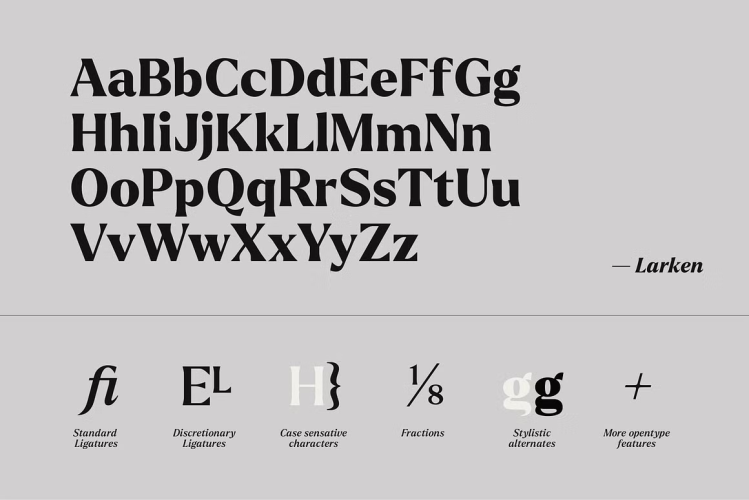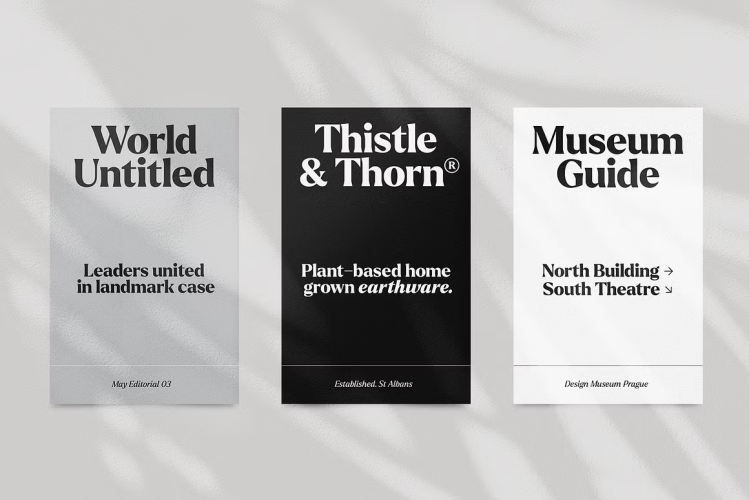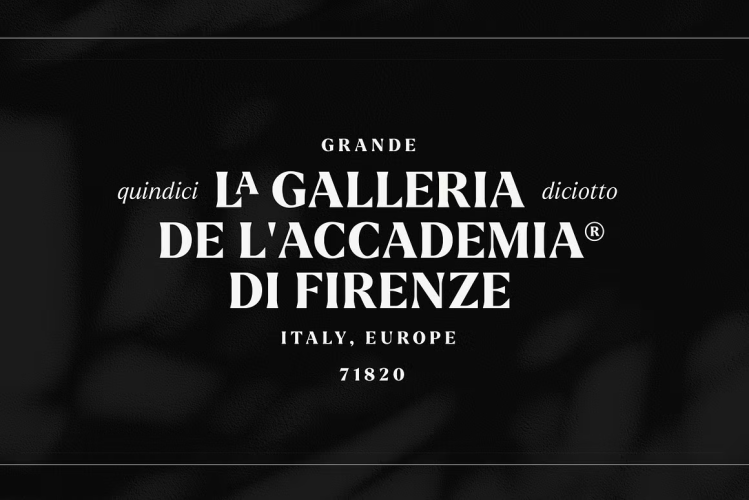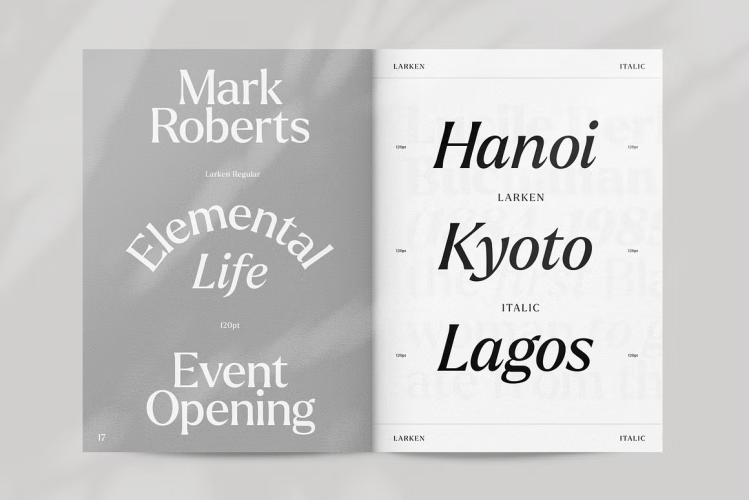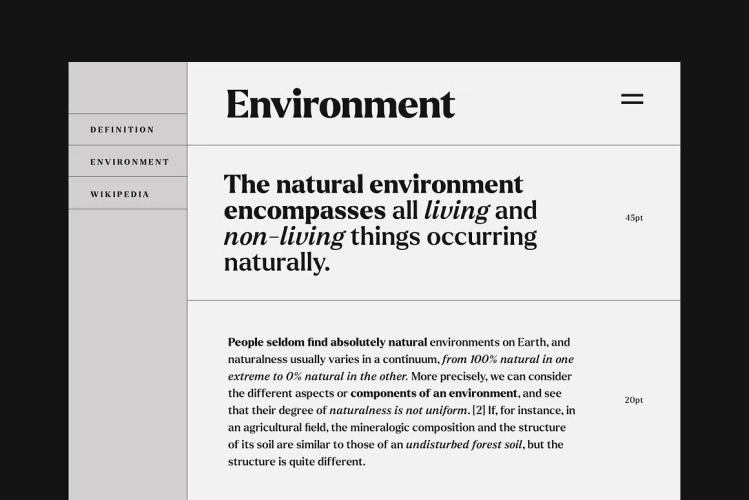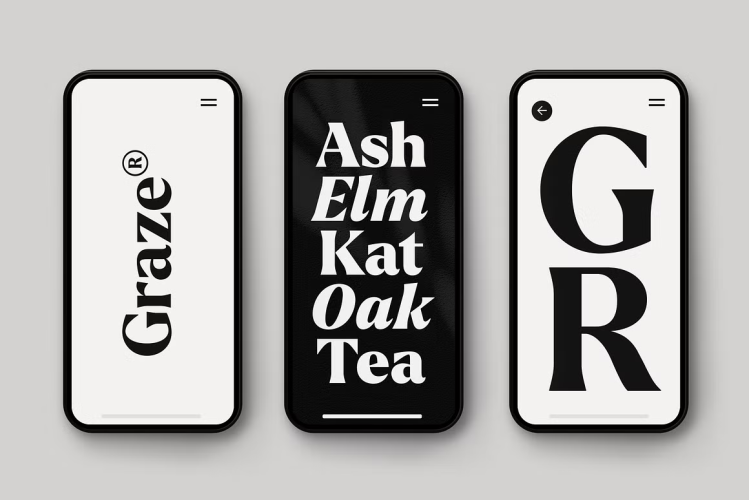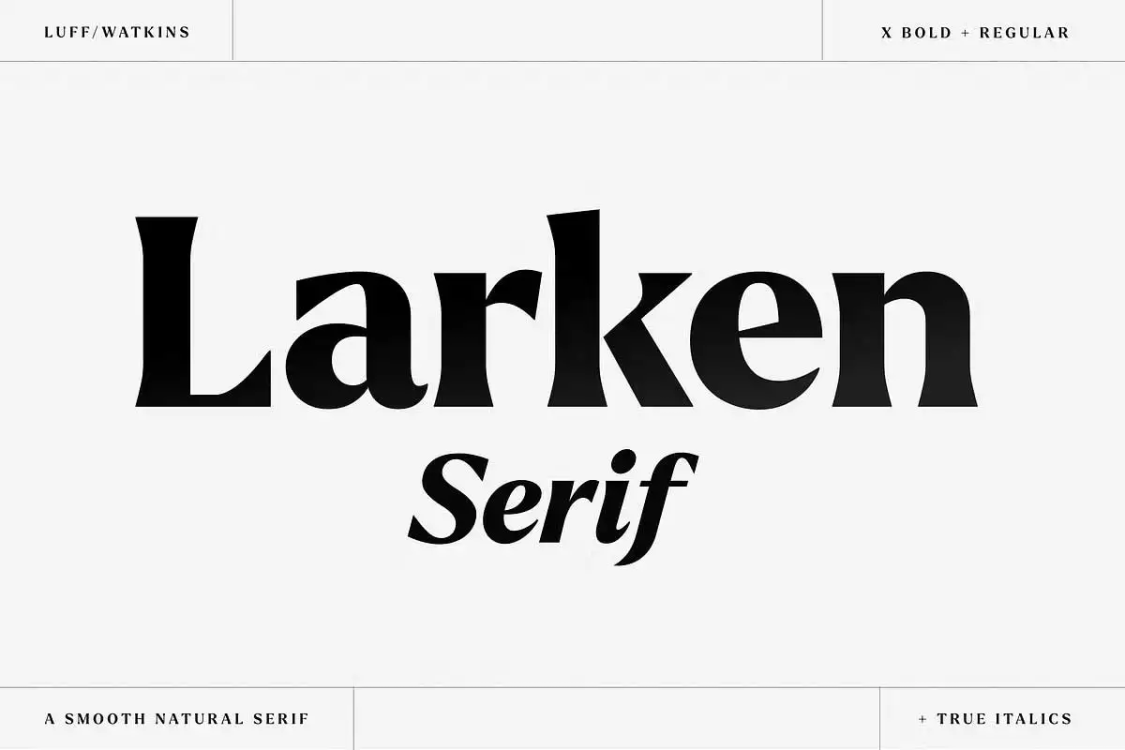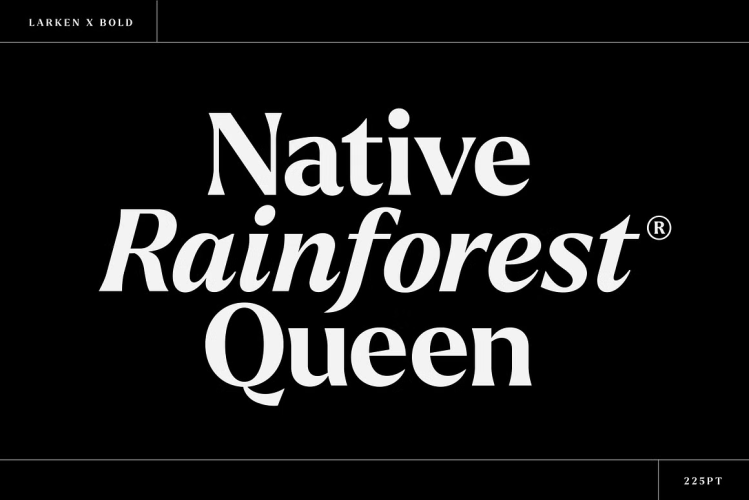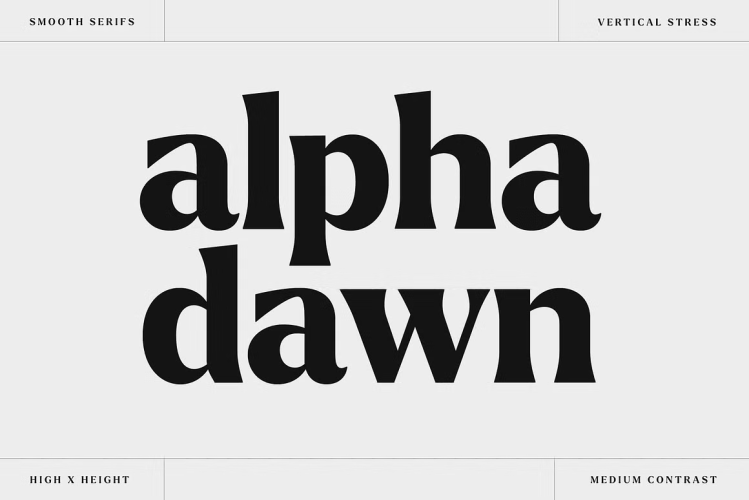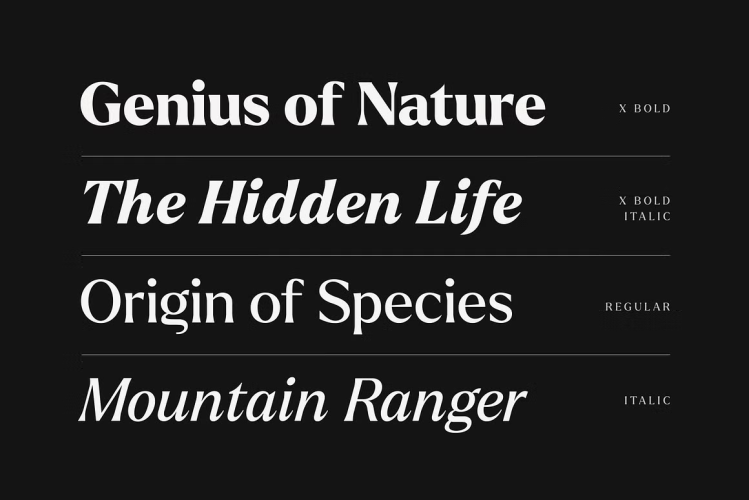
Larken Font
Larken is an elegant and contemporary serif font. The Larken Incorporated style is inspired by nature, conveying softness and expressiveness. The concept combines functionality with aesthetics, resulting in a design that’s both visually appealing and highly practical for communication purposes.
Larken Essentials presents a style that adapts to four styles, which cater to all the languages (like Latin) that have their origin in Latin. Its natural beauty was further bolstered by the provision of modern utility and installation of stylish italics, which provided aesthetics, liveliness, and the ability to be used in modern applications.
This genre is reflected in the use of organic curves and repetition, which make this type of experience harmonious and complete. In larger typography sizes, the details of lettering shaping will stand out to the reader. Still, the design has remained simplistic enough to smooth the printing process, even for smaller types, facilitating the reader’s comfort regarding long-term reading.
The unpredictable variable weight in Lark’s character gives rise to an in-depth smeared contour, ascribed by the roundness of the body’s curves, swells, and slopes. The oses of pleats shown in subtler colors, without optical correction, suggest a soft and tender sense of the fabrics.
Besides, varied character sets beyond standard ASCII characters with some OpenType features like SVG-like alt elements, several stylistic alternates, and ligatures make it versatile for diverse typographic needs. The specific range here is a rock that is a salvage workhorse that gives a new life to different tasks, from minor to big.
Where Larken Font works best
Larken Font gives long-form text a classic, trustworthy rhythm — ideal for magazine spreads, annual reports and book interiors.
Pair Larken Font with generous letter-spacing for wordmarks in fashion, hospitality, wine and jewellery branding.
Use Larken Font for slide titles in Keynote, PowerPoint or Google Slides to add authority without looking dated.